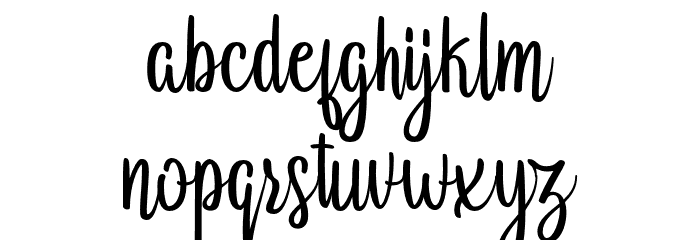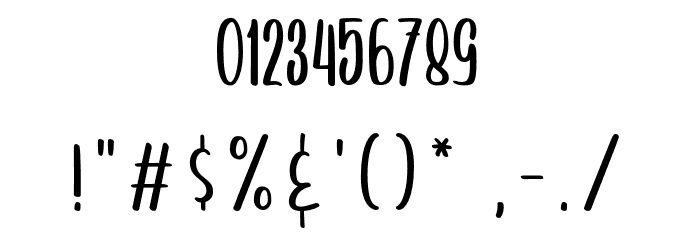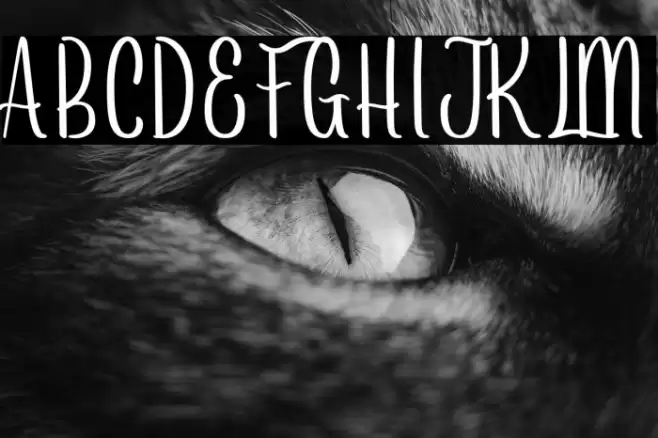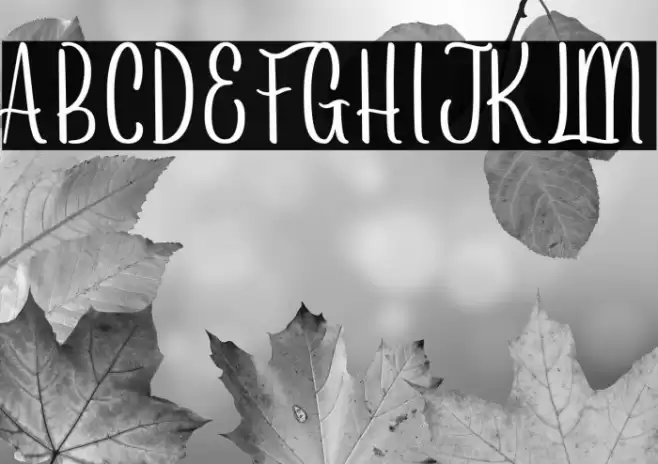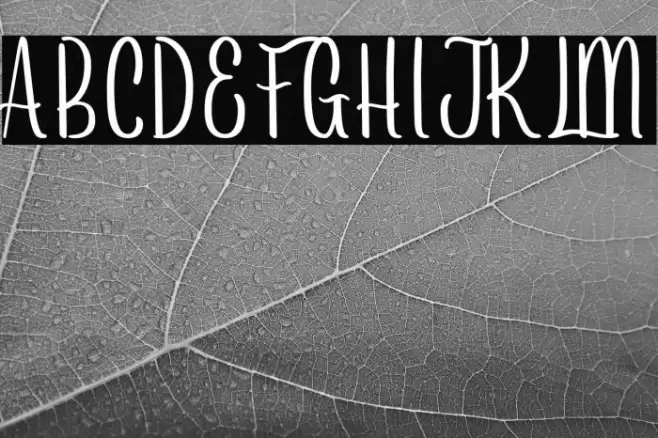
Arayarademo Font
This font features a playful and whimsical style with a handwritten appearance. The letters are tall and slightly narrow, with a natural flow that suggests a casual and friendly tone. The uppercase letters are bold and prominent, while the lowercase letters maintain a consistent and harmonious look. The numbers are clear and legible, matching the overall aesthetic. Special characters are included, adding versatility to the font. The strokes are smooth and consistent, with a medium contrast that enhances readability without sacrificing style.
A playful, handwritten font with a whimsical and friendly style.
- Font: Arayarademo
- Proposed Projects: Ideal for greeting cards, invitations, playful branding, and social media graphics.
- Category: Handwritten
- Overall Style: Playful
- Use Case: Logos, Headlines, Invitations